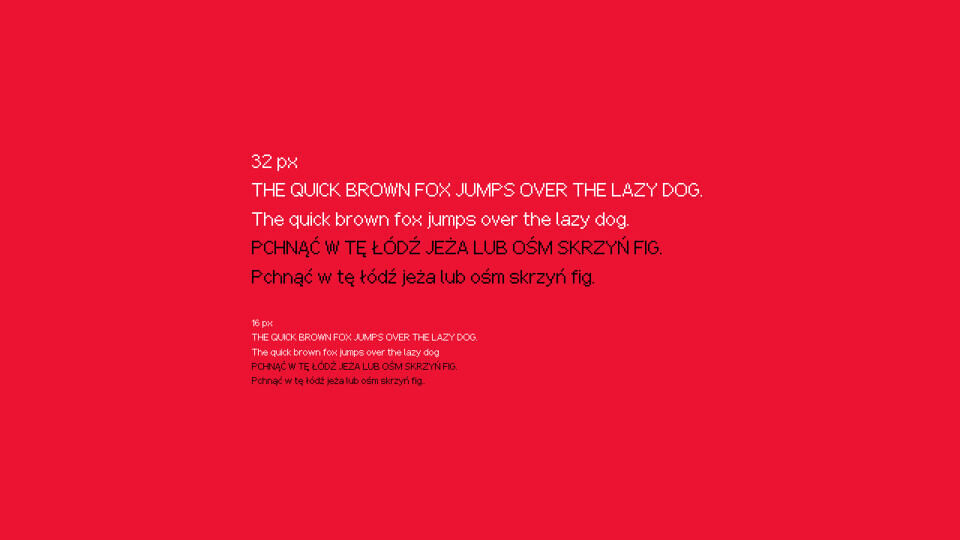
Pixelbasel is a free, pixel‑perfect bitmap typeface designed by GGBotNet. It features 422 glyphs and supports 49 languages, making it ideal for retro‑digital and modern‑tech aesthetics.
Crafted on a precise pixel grid, it ensures clear readability and bold, blocky character—perfect for posters, UI mockups, indie games, and nostalgic branding.